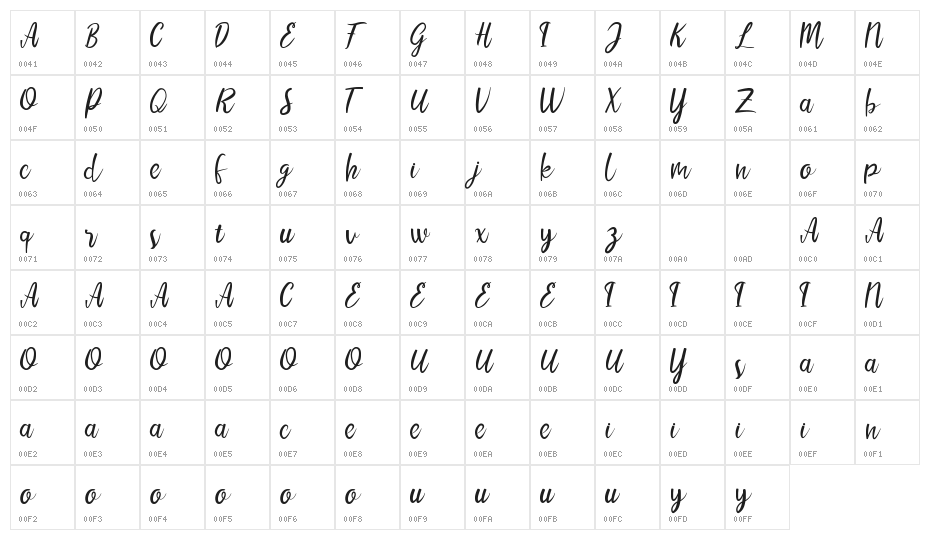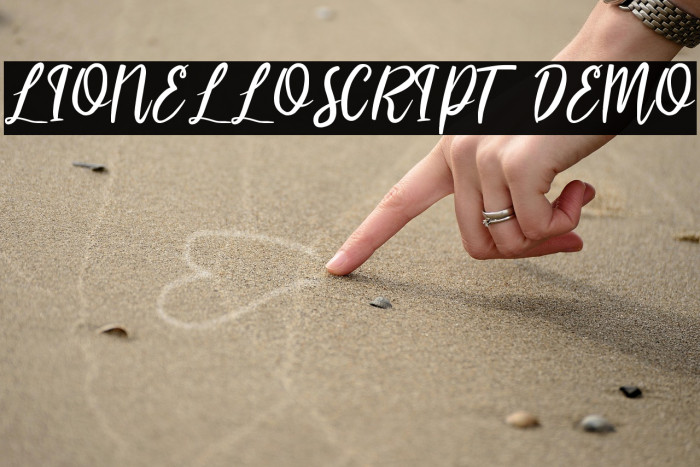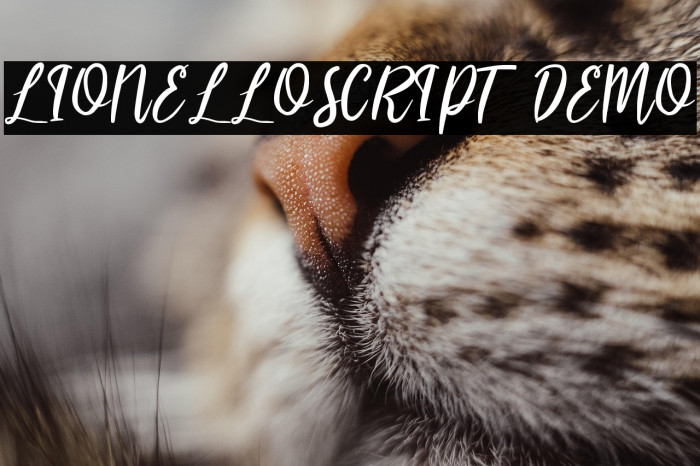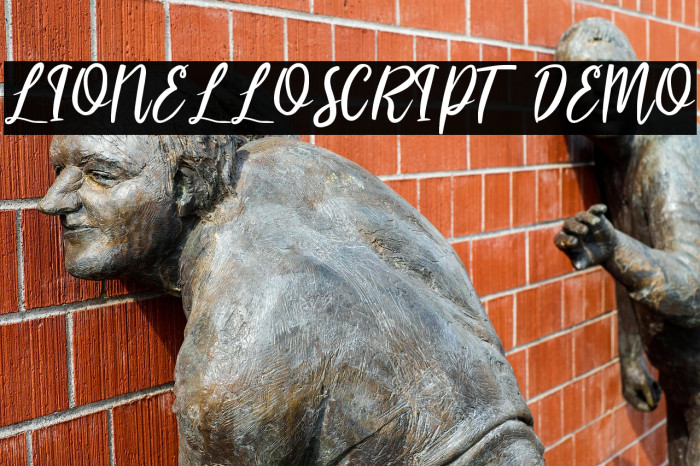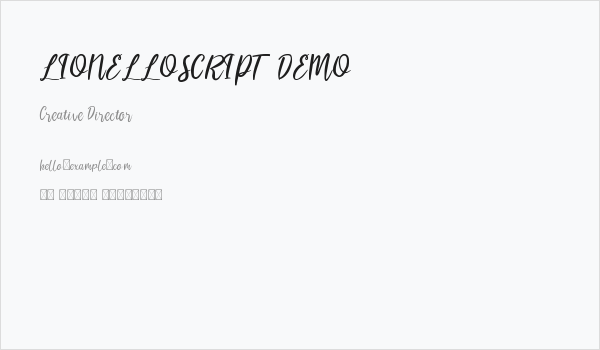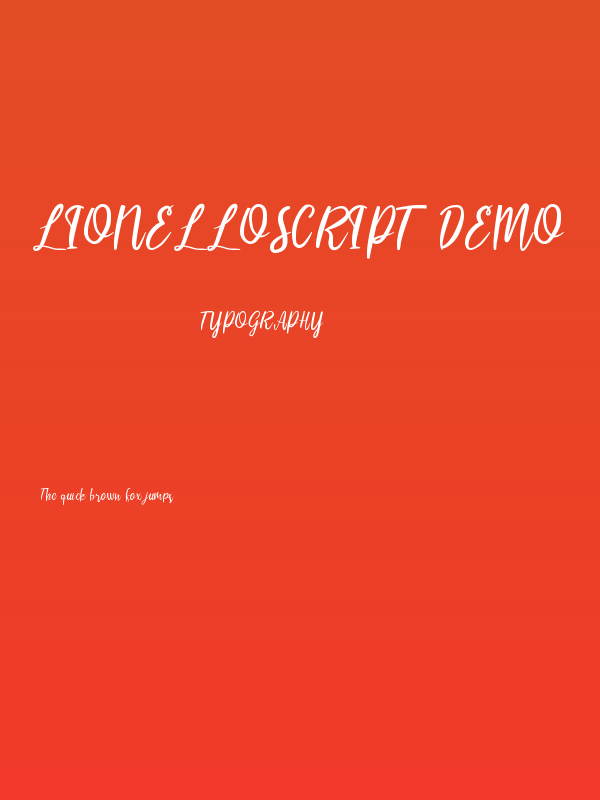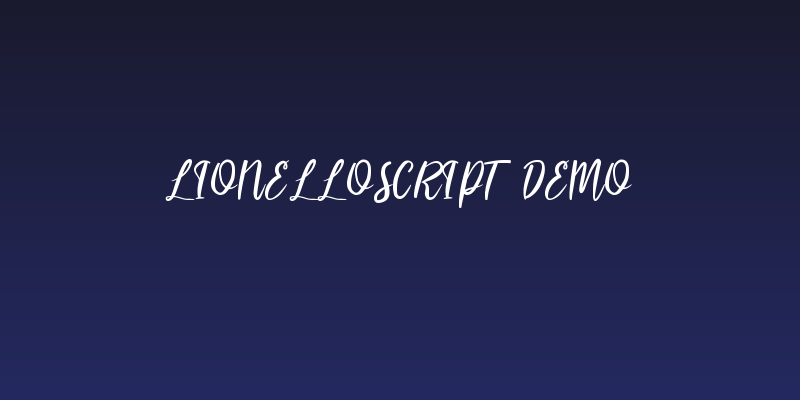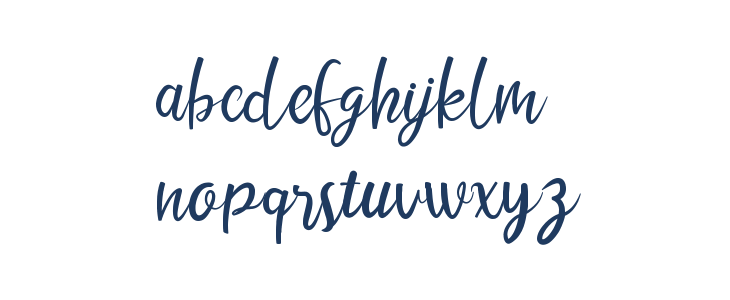
LIONELLOSCRIPT DEMO Font
LIONELLOSCRIPT DEMO Description
This script font exudes elegance and fluidity, characterized by its smooth, flowing strokes and cursive style. The uppercase letters are bold and dynamic, with a slight slant that adds a sense of motion and grace. The lowercase letters maintain a consistent flow, enhancing readability while preserving the artistic flair. The font's design is reminiscent of traditional calligraphy, yet it incorporates modern elements that make it versatile for contemporary use. The strokes vary in thickness, providing a medium contrast that adds depth and interest to the text. Overall, this font is perfect for projects that require a touch of sophistication and creativity.